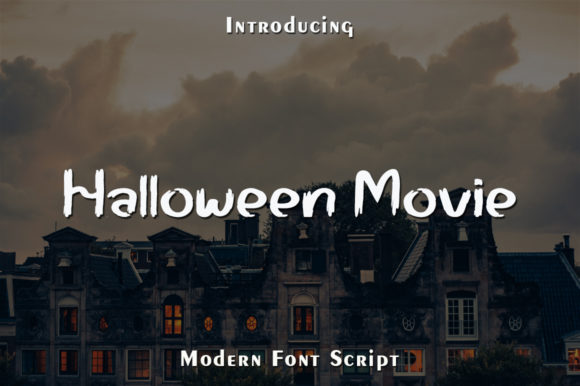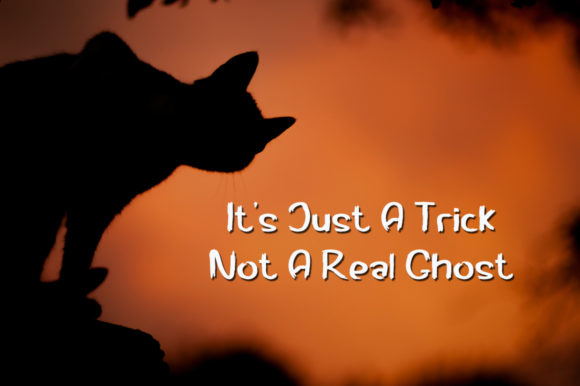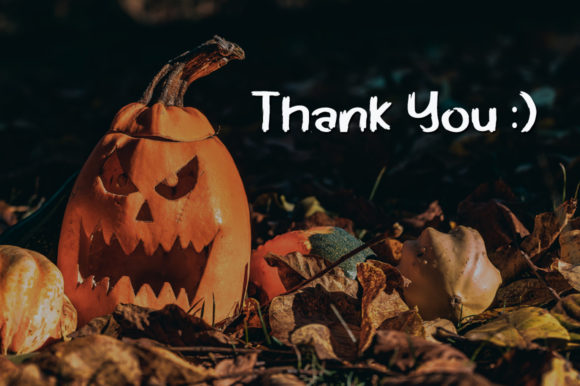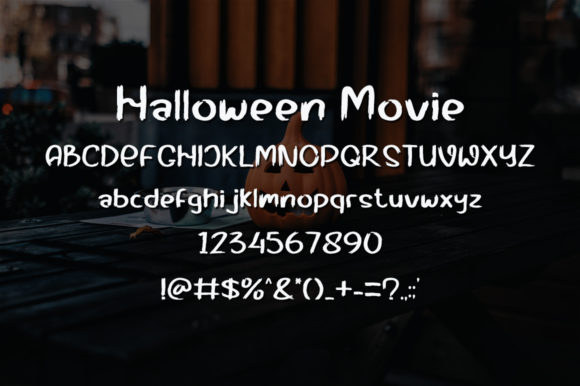
About Halloween Movie Font
Halloween Movie is a charming and distinctive handwritten font that adds a playful twist to any Halloween-themed project. With its simple yet unique letterforms, this font captures the spirit of the spooky season and sets the perfect mood for all things Halloween. Whether used in digital or print media, Halloween Movie is a versatile choice that enhances a wide range of creative ideas.
The font’s quirky and fun appearance makes it ideal for Halloween party invitations, flyers, and decorations. Its playful vibe brings a sense of excitement and anticipation, making it perfect for setting the mood for a fun and memorable Halloween celebration.
In social media graphics, Halloween Movie adds a touch of spookiness to each post. Whether you’re sharing spooky stories, announcing Halloween sales, or simply embracing the Halloween spirit, this font elevates your message and captures the attention of your audience.
For Halloween-themed logos and branding, Halloween Movie helps create a distinct and memorable visual identity. Its unique style sets your brand apart and adds a touch of fun and excitement to your products or services, appealing to customers looking for Halloween-themed experiences.
Moreover, Halloween Movie is an excellent font choice for Halloween-themed crafts and DIY projects. Whether it’s creating custom decorations, party favors, or personalized Halloween cards, this font adds a delightful handmade feel to every creation.
In summary, Halloween Movie is a simple and unique handwritten font that perfectly complements all your Halloween-themed ideas. Its quirky and fun style adds a playful twist to any project, making it ideal for Halloween party invitations, social media graphics, branding, and DIY crafts. Embrace the charm of Halloween Movie and let your imagination run wild as you create spook-tacular designs that will delight and enchant everyone during the Halloween season.